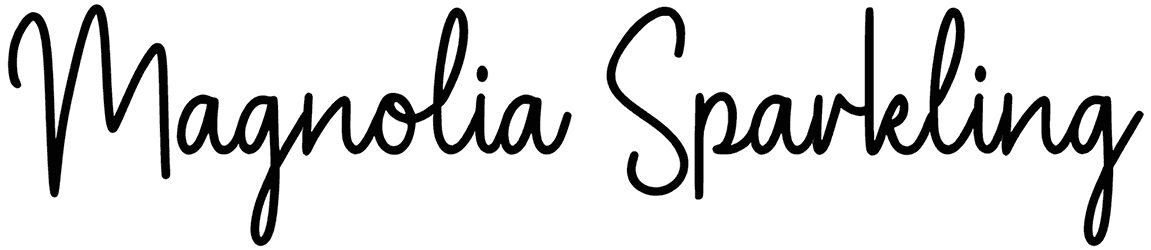
Magnolia Sparkling Font
Magnolia Sparkling is a type of handwritten font that was designed by leaving the standard trends and combining simple graphics, it was able to create a pleasing result.
This script font provides you with new ideas that you may not have thought of before, with thousands of script fonts in your collection. Narrow letters and short twists and turns of this font in wedding invitations and social media graphics leave your hands free to implement your ideas.